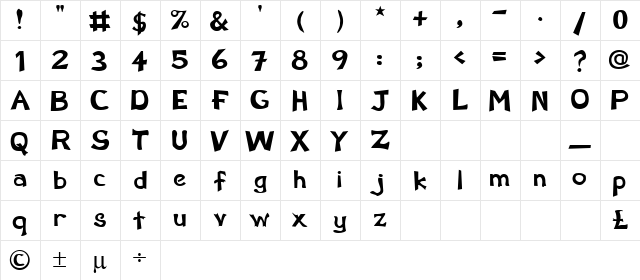
Schwarz Regular
Schwarz Family
Design Context for Schwarz
Schwarz is a composed and adaptable typeface that performs quietly and consistently across a wide range of design contexts.